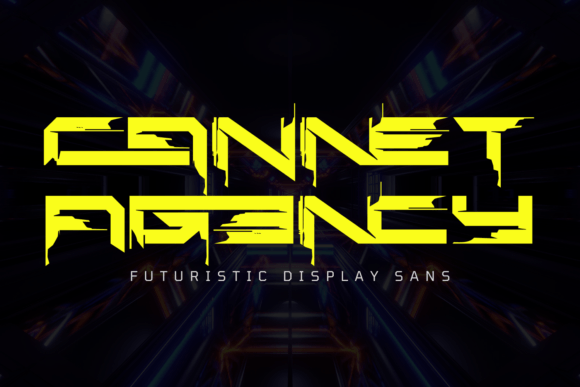
Unleash your creativity and dive into the extraordinary world of Cannet Agency Font, a cyberpunk display font that defies convention and pushes the boundaries of design. This masterpiece is crafted meticulously by 177Studio, a team of visionary artists dedicated to redefining the digital art landscape. Cannet Agency Font is not just a collection of letters and symbols; it's a gateway to a realm where imagination reigns supreme.
Immerse yourself in the pulsating energy of this display font, meticulously engineered to evoke the spirit of the future. Each glyph radiates with power and determination, reminiscent of the mechanically engineered beings that served as its inspiration. Let Cannet Agency Font transport you to distant galaxies, where sleek spaceships traverse the cosmos and neon cities illuminate the darkest corners of the universe.
Picture yourself crafting movie posters that ignite the imagination and leave audiences breathless. Create otherworldly logos that transcend the boundaries of reality and capture the essence of the unknown. Whether you're a seasoned designer or just starting your journey, Cannet Agency Font is your passport to a world where creativity knows no limits.
With its inherent versatility, Cannet Agency Font seamlessly blends with a myriad of design aesthetics. It effortlessly adapts to futuristic compositions, cyberpunk-inspired creations, and everything in between. Unleash your inner artist and embark on an endless voyage of exploration, where each project becomes a testament to your boundless imagination.
This extraordinary font is PUA encoded, ensuring effortless access to an array of mind-boggling glyphs and ligatures. With a few simple clicks, you can unleash a symphony of visual elements that will elevate your designs to unparalleled heights. Experience the sheer joy of crafting masterpieces that exude originality, innovation, and limitless creativity.